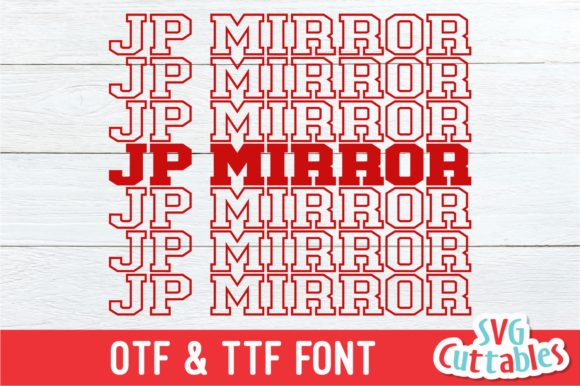
Introducing JP Mirror Font, the ultimate choice for all your creative and crafty endeavors! This captivating decorative font is specifically designed for those with a flair for artistic expression. Created by the renowned SVG Cuttables, JP Mirror Font is the perfect addition to elevate your designs and leave a lasting impression.
With its unique and eye-catching style, JP Mirror Font is your go-to solution for any project that requires a touch of creativity. Whether you're designing product packaging, creating short and impactful text, or designing banners that demand attention, this font will exceed your expectations.
Imagine the impact of JP Mirror Font on your sport logo designs! It effortlessly blends elegance with a hint of playfulness, making it an ideal choice for sports teams, fitness brands, and athletic events. Let your imagination run wild as you create stunning logos that capture the essence of strength, agility, and determination.
Crafted with meticulous attention to detail, JP Mirror Font showcases its versatility in various design applications. Its bold and dynamic characters make a bold statement, while still maintaining a sense of elegance and sophistication. Each letter exudes a sense of energy and movement, embodying the spirit of sportsmanship and competitiveness.
JP Mirror Font is more than just a font; it's an opportunity to breathe life into your designs and evoke emotions in your audience. It has the power to captivate, inspire, and leave a lasting impression on anyone who encounters your creations.